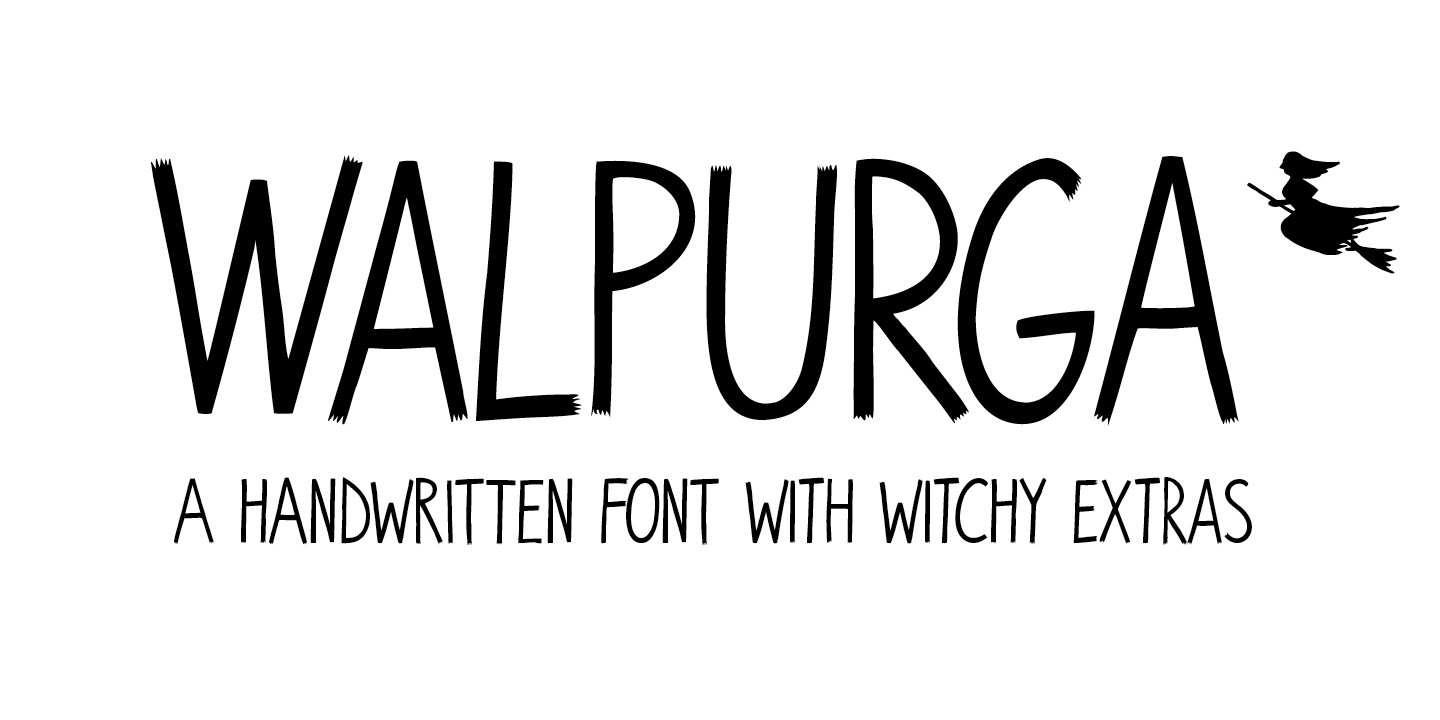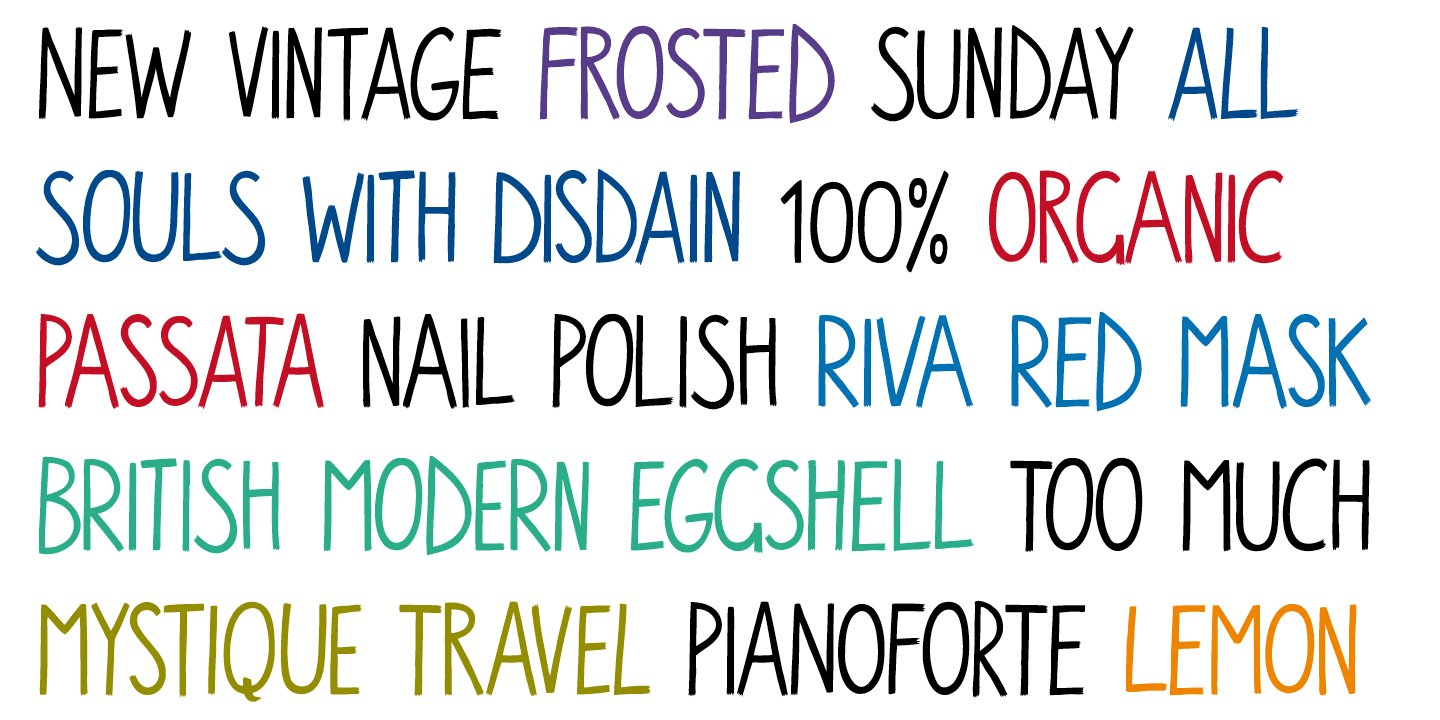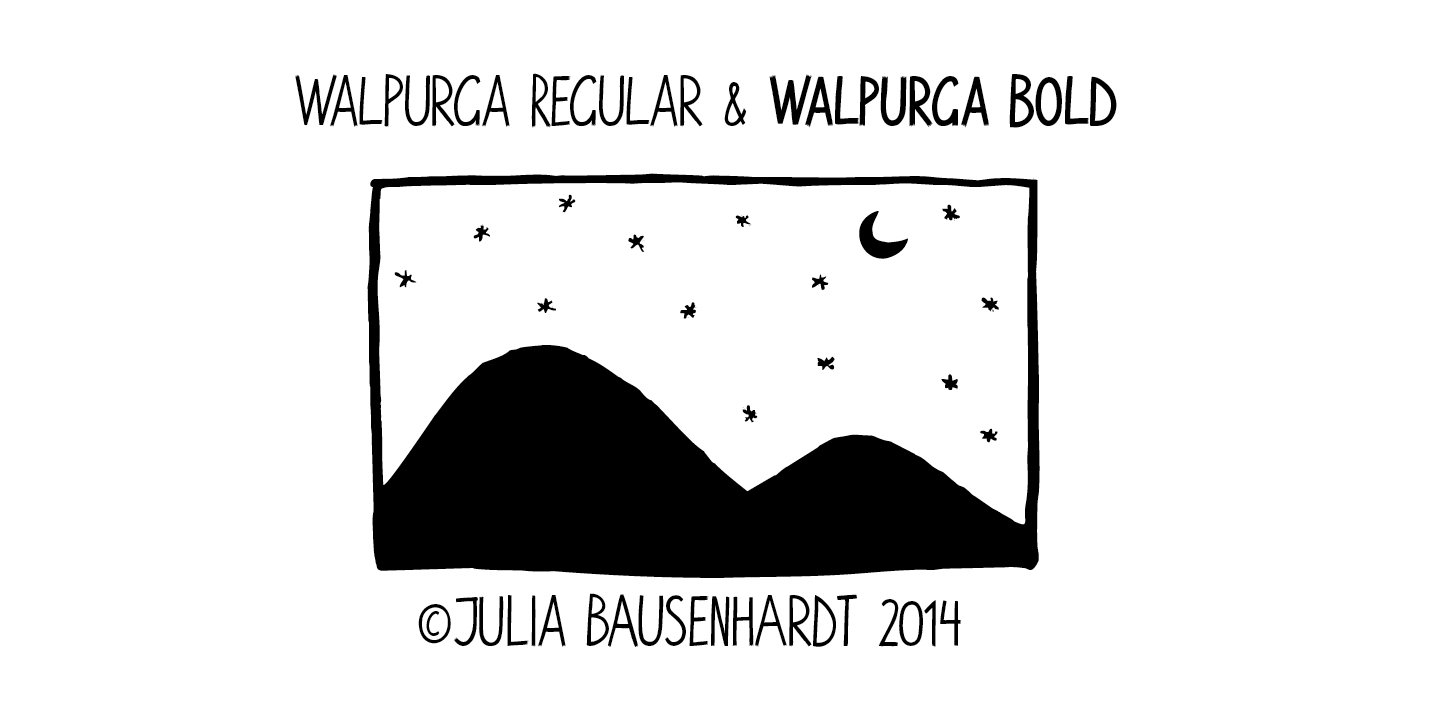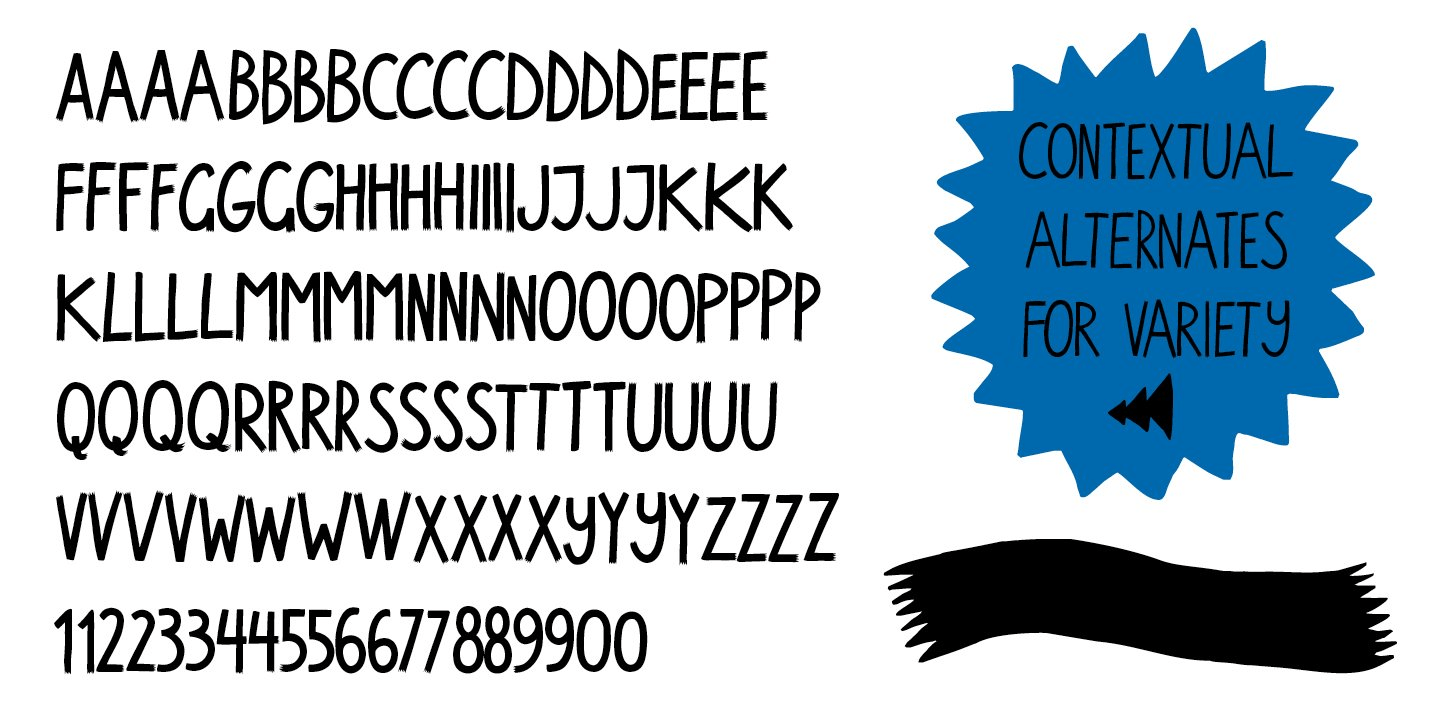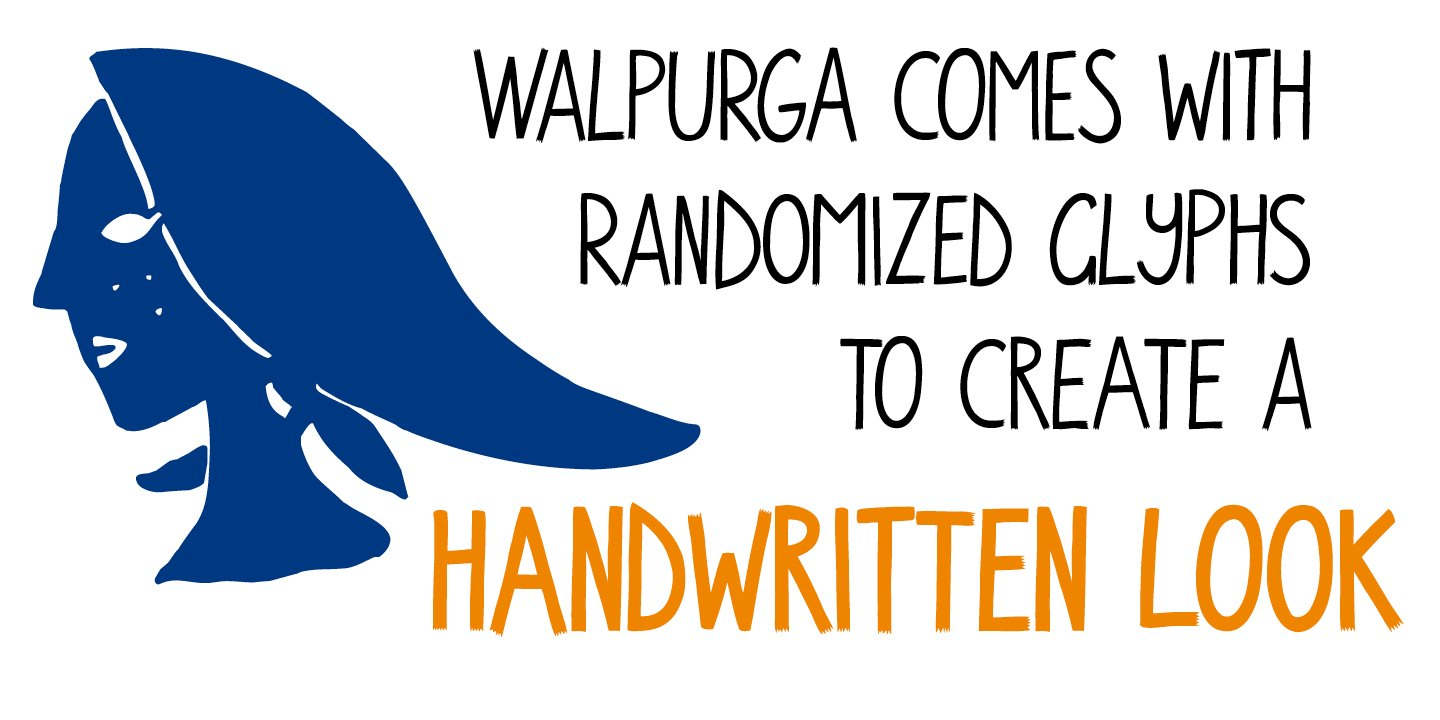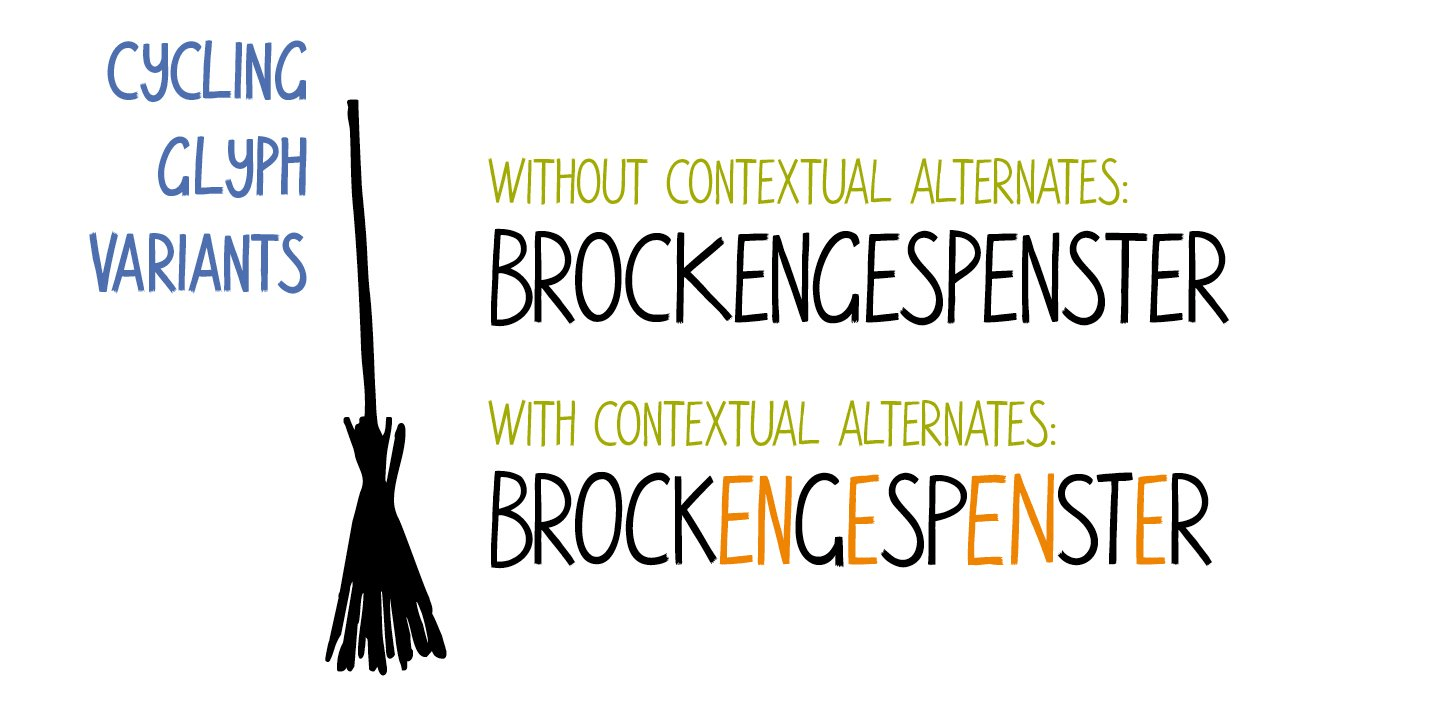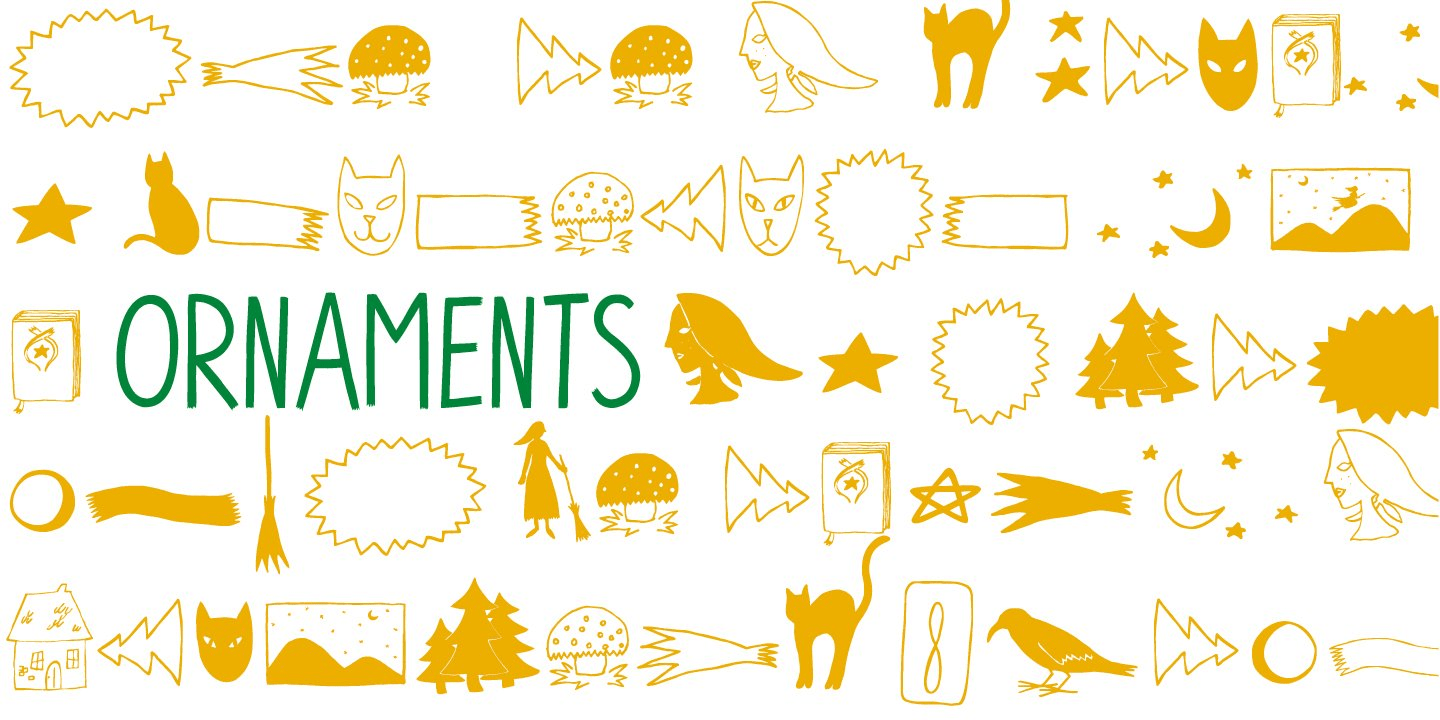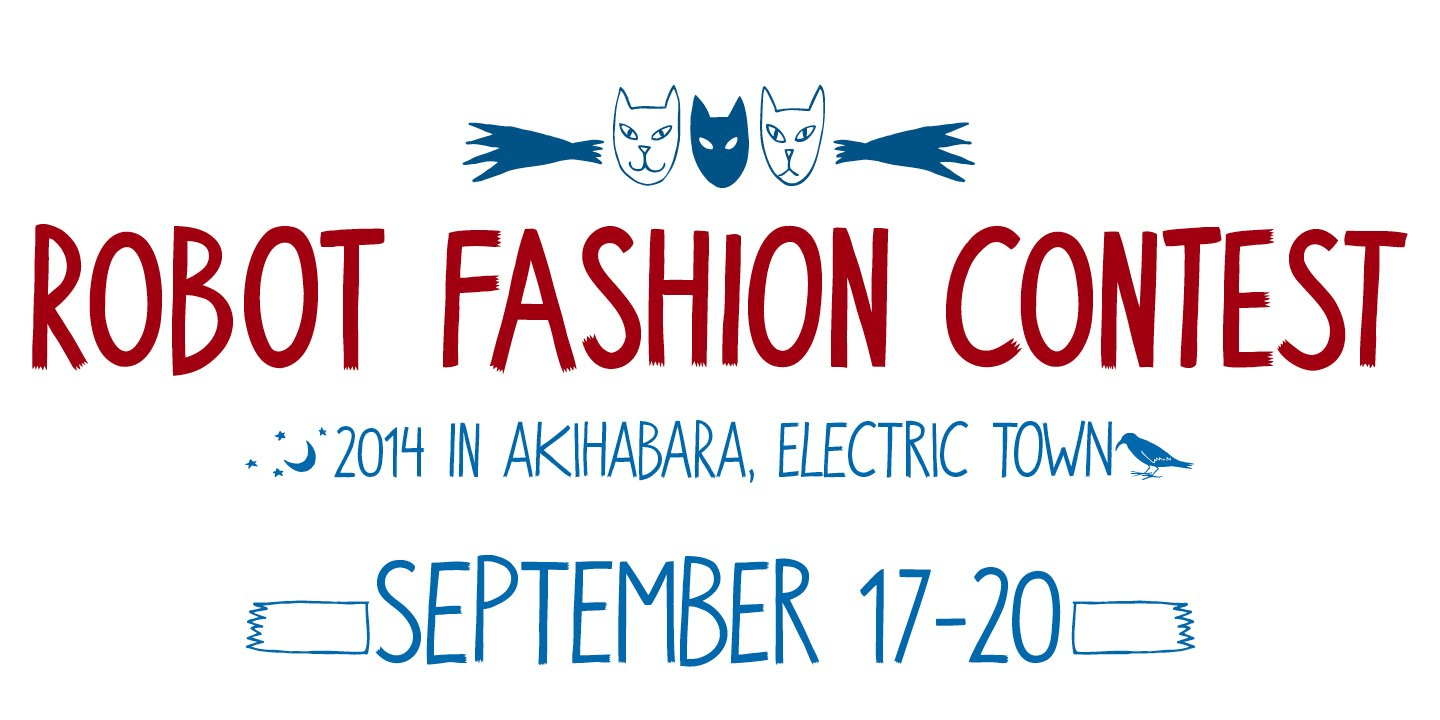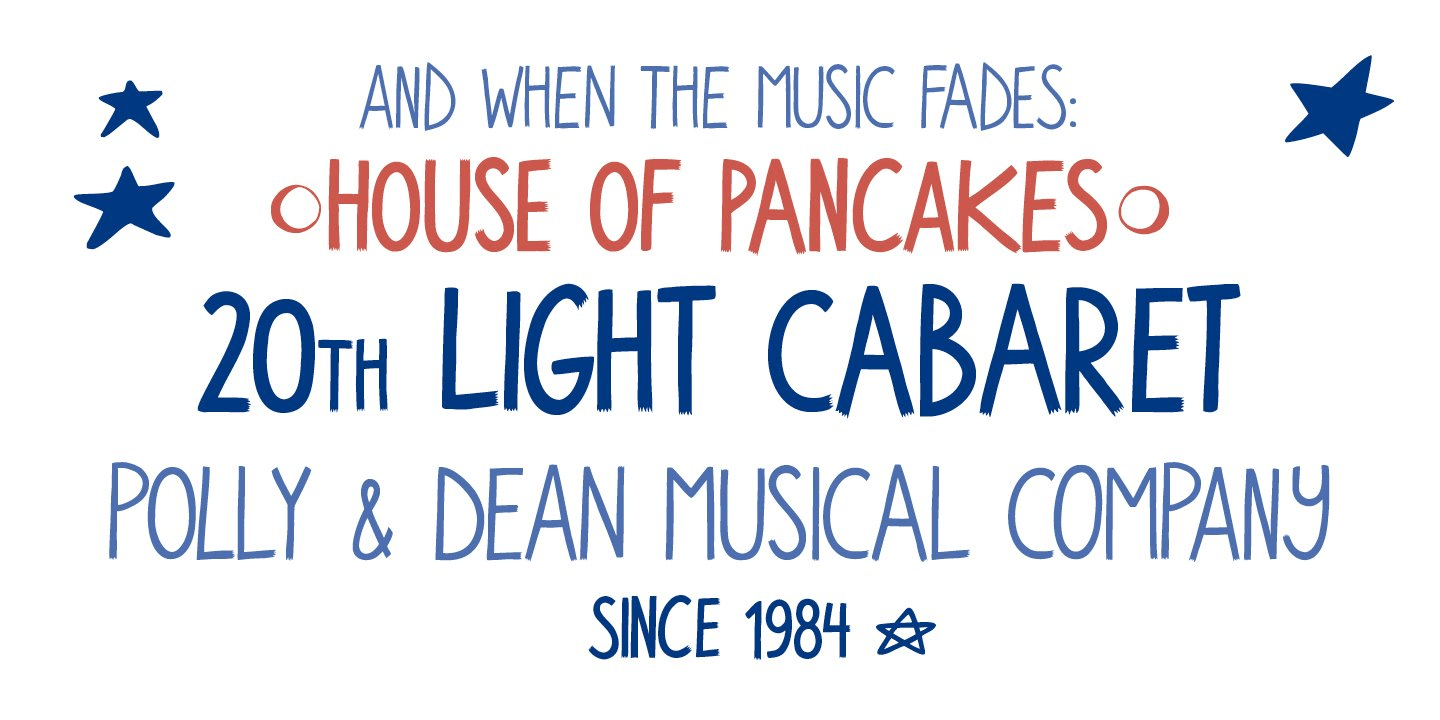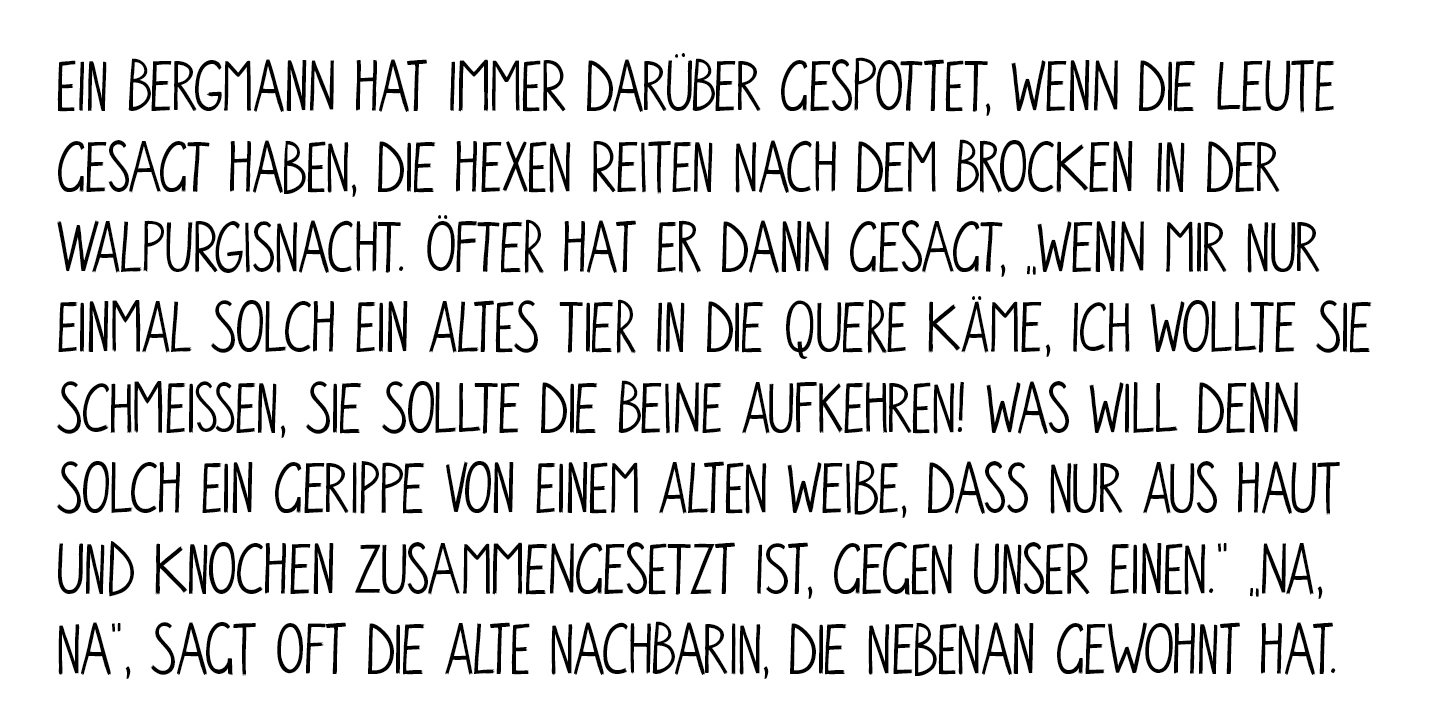
Walpurga
Font Family by Julia Bausenhardt
Walpurga is a witchy display font that comes in two variants - regular & bold - and with four glyphs for each letter. There is a set of ornaments and the in-built open type features produce a random, natural looking effect when activated through the "contextual alternates" feature.
Walpurga was created with stylized brush ends that become visible at larger font sizes. A fresh, versatile font that is usable for a wide range of design applications.